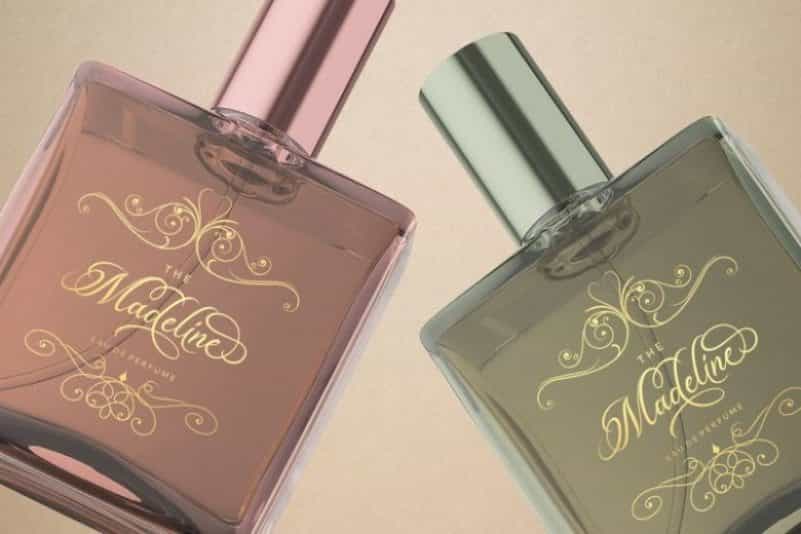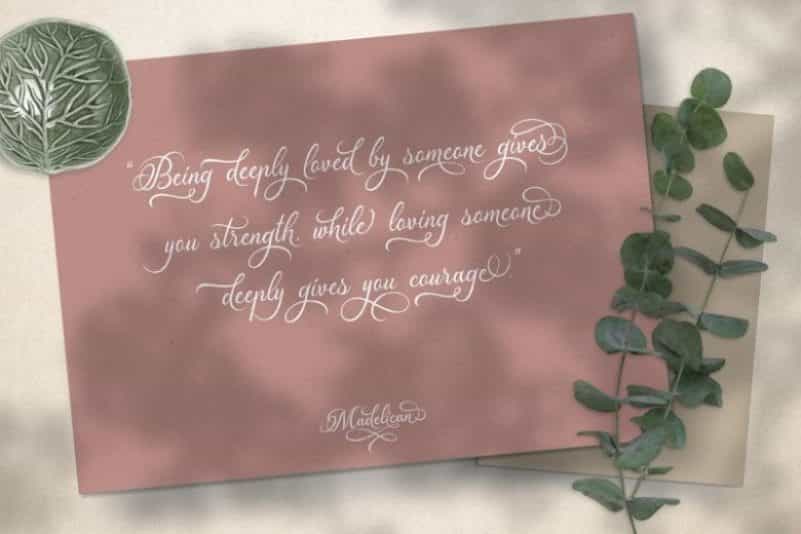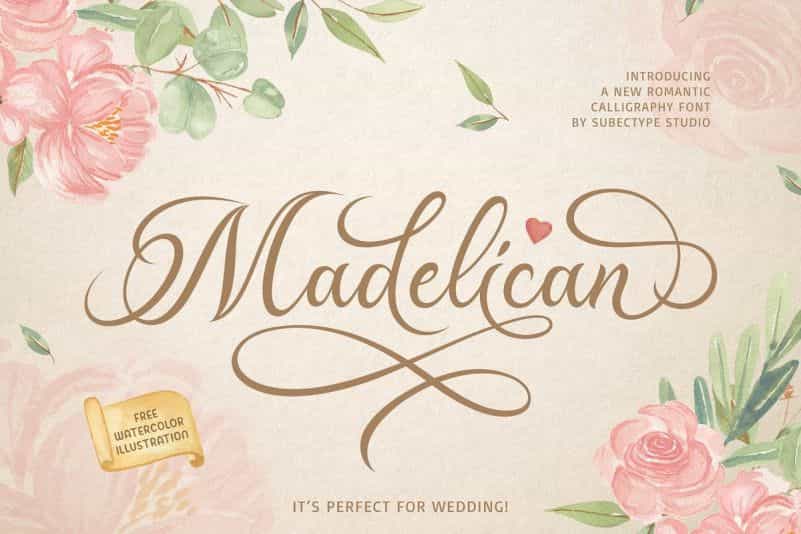
Madelican Font is a fancy font that is classified under calligraphy font that has varying baseline, smooth line modern with a depth love. For you who need love and modernity for your designs or branding, you can use for headings, wedding, invitation, signature, logos, branding, t-shirt, letterhead, signage, lable, news, posters, badges and so on.